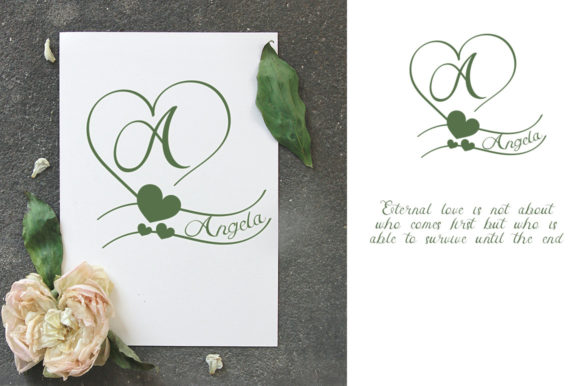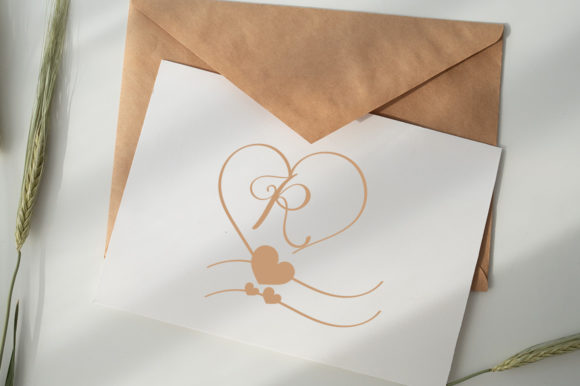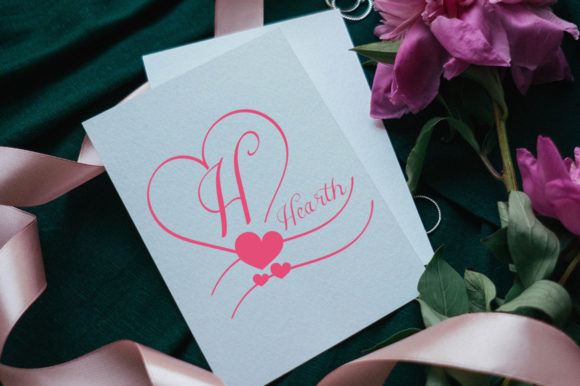
Introduction to Love Sweet Monogram Font
Have you ever found yourself rummaging through a dusty old trunk, filled with forgotten love letters and vintage photographs, only to stumble upon a beautifully crafted monogram that instantly transports you to a bygone era of romance and whimsy? This is exactly the kind of creative moment that sparks the imagination and inspires us to create something truly special.
For designers, finding the perfect font can be a game-changer, elevating a simple project into a masterpiece. And that’s exactly what the Love Sweet Monogram Font does – it adds a touch of elegance and sophistication to any design, making it a valuable resource for any creative project.
With its dainty and unique design, this font is perfect for adding a romantic touch to wedding invitations, love letters, and other design ideas. And the best part? It’s available for free download, making it an accessible and high-quality design resource for designers of all levels.
Key Features of Love Sweet Monogram Font
- High-quality design resource ideal for creative projects, such as wedding invitations and greeting cards.
- Unique and customizable monogram font, allowing users to personalize their designs with ease.
Honest Review: Love Sweet Monogram Font
I recently stumbled upon the Love Sweet Monogram Font, and I must say it’s been a fantastic addition to my design library. This high-quality font is perfect for any creative project that requires a touch of elegance and sophistication.
Here are some features that I absolutely love about this font:
- ✨ Beautiful, intricate design that adds a personal touch to any project
- ✨ Perfect for creating customized gifts, invitations, or wedding stationery
- ⚠️ Limited font styles and variations, which may not be ideal for designers who require a broader range of options
Overall, I’m thoroughly impressed with the Love Sweet Monogram Font. Its high quality and versatility make it an excellent design resource, and I’m excited to incorporate it into my future projects.
The Love Sweet Monogram Font is perfect for creating custom invitations, wedding decorations, and other personalized items. It’s also great for branding and marketing materials, such as logos, business cards, and social media graphics.